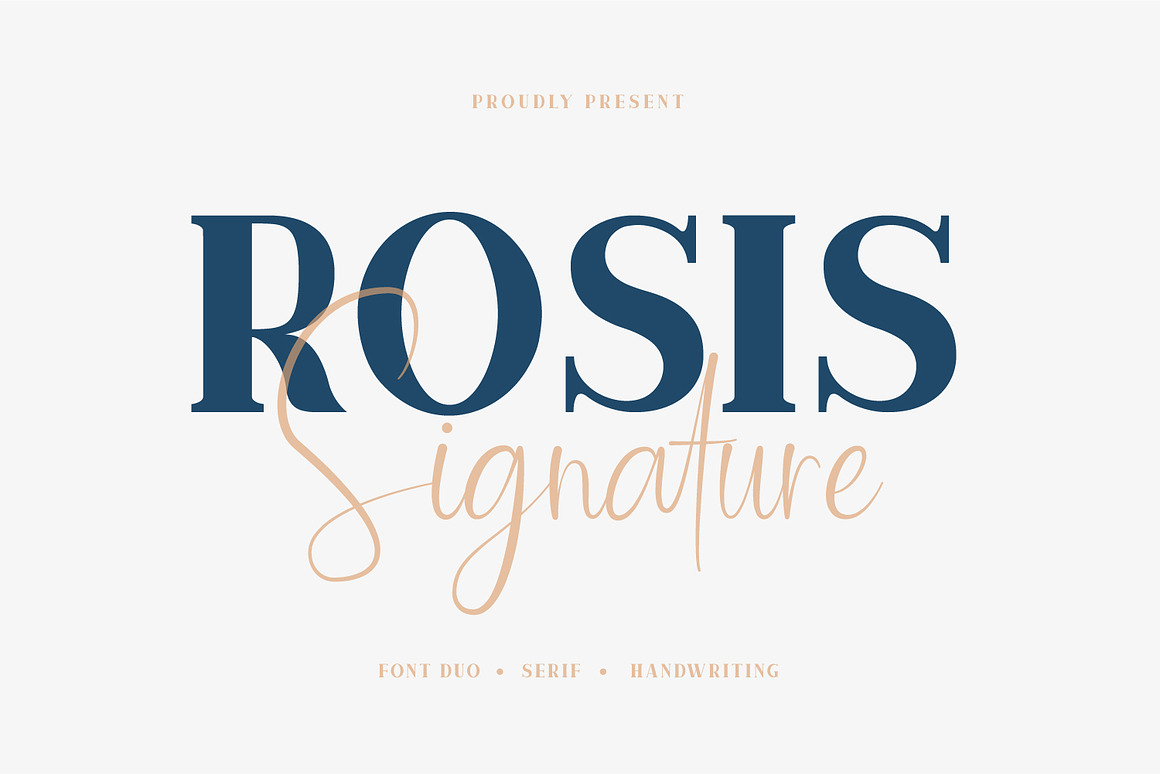
Rosis And Ballroom Font Duo
Rosis And Ballroom Font Duo is perfect for elegant wedding invitations, romantic event planning, sophisticated dance studio branding, luxury ballroom venue marketing, graceful celebration stationery, refined anniversary materials, upscale social event campaigns, and enchanting romantic designs.
What makes Rosis And Ballroom Font Duo exciting is its romantically elegant dual-font system that captures the timeless beauty of ballroom dancing and romantic celebration through complementary letterforms that waltz together in perfect harmony. The font duo features graceful primary and secondary styles that mirror the elegant partnership of dance, creating sophisticated typographic compositions that seem to flow across the page with the fluid grace of ballroom movements. Its romantic aesthetic and dance-inspired elegance make it perfect for brands that want to communicate romance, elegance, and the timeless appeal of celebrating life's most beautiful moments while creating memorable experiences that honor the art of dance and the magic of romantic partnership.
Rosis And Ballroom Font Duo family includes two complementary font styles that work together seamlessly, often featuring different weights and romantic treatments such as script and serif combinations or elegant and ornamental variations. The duo may include romantic alternates, dance-inspired ornamental elements, and sophisticated decorative features that enhance the fonts' ballroom aesthetic, providing designers with flexible options for creating enchanting typographic compositions that celebrate romance and elegant celebration.